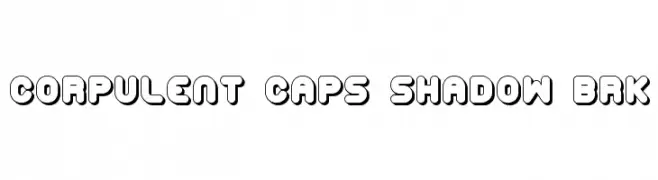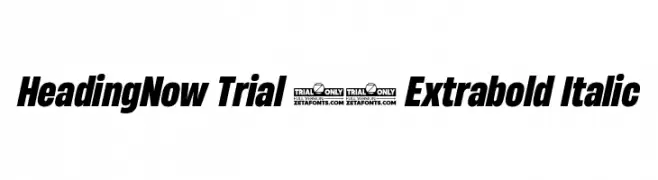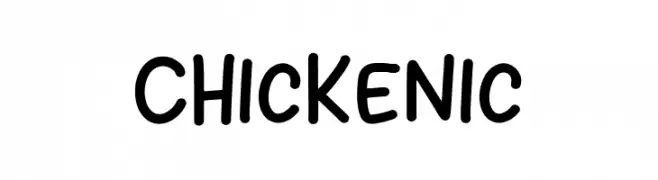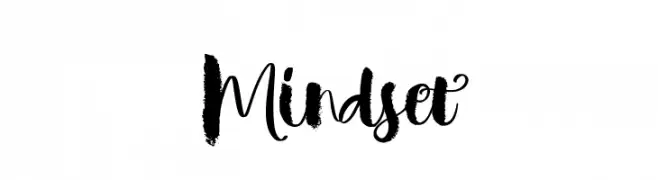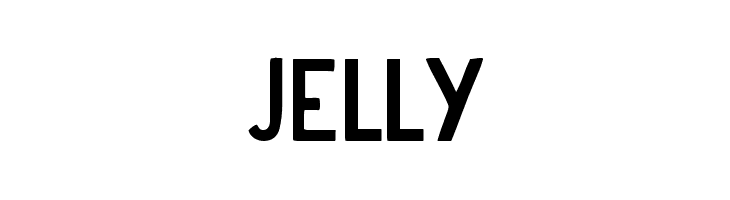
A bold, playful font with a 3D shadow effect and rounded characters.
An ornate, Art Nouveau-inspired decorative font with intricate designs.
A bold, dynamic script font with elegant, flowing cursive letterforms.
A bold, italicized font with a strong, modern presence.
A playful, handwritten font with rounded edges and a casual, friendly style.
A modern, semi-condensed sans-serif font with a semi-bold weight, offering clarity and versatility.
A bold, brush-style script font with dynamic curves and artistic flair.
A playful, rounded font with a hand-drawn, child-friendly style.
A bold, rounded font with smooth curves and a modern, friendly appearance.